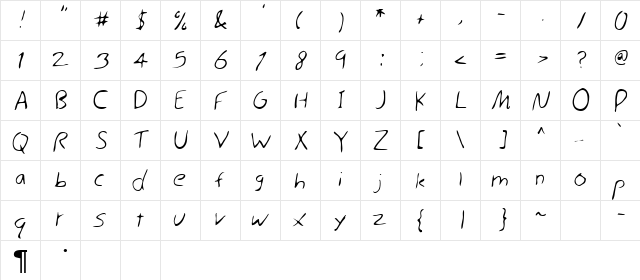
Evon Regular
Design Context for Evon Typeface
Evon is a composed and adaptable typeface that performs quietly and consistently across a wide range of design contexts.